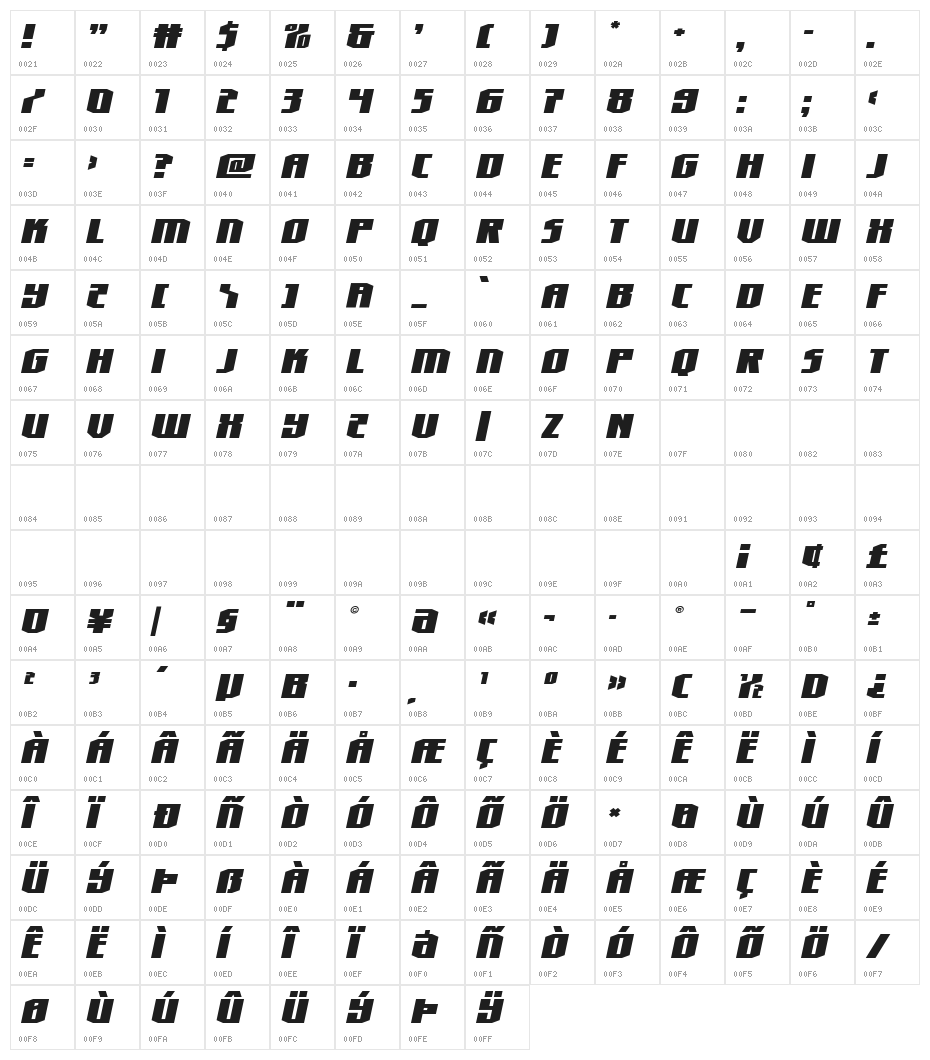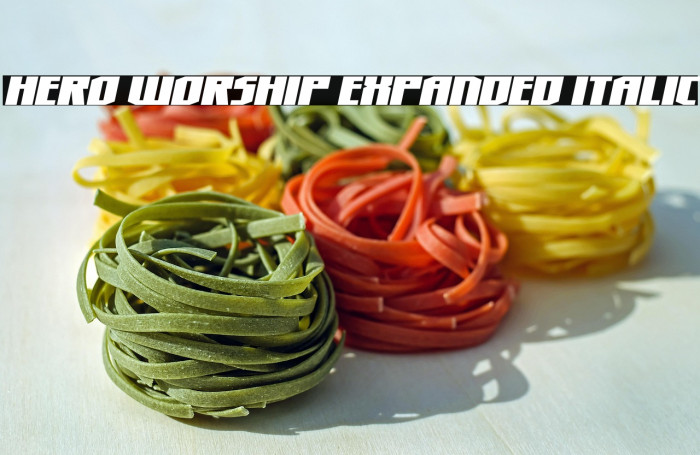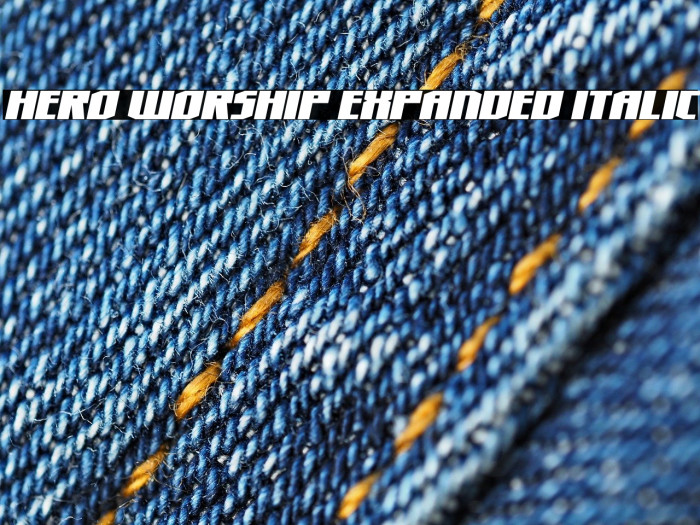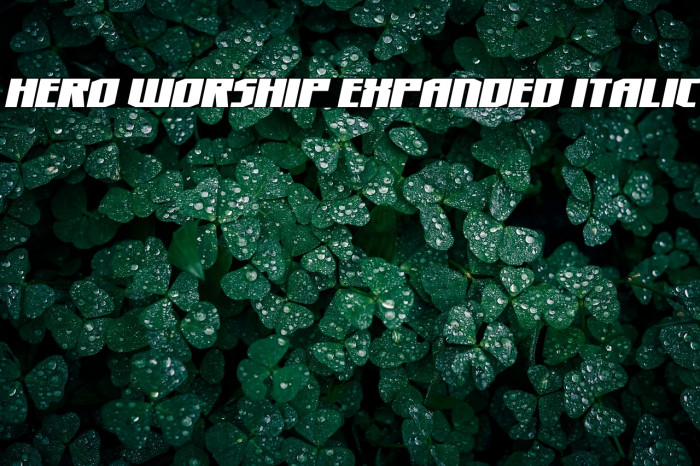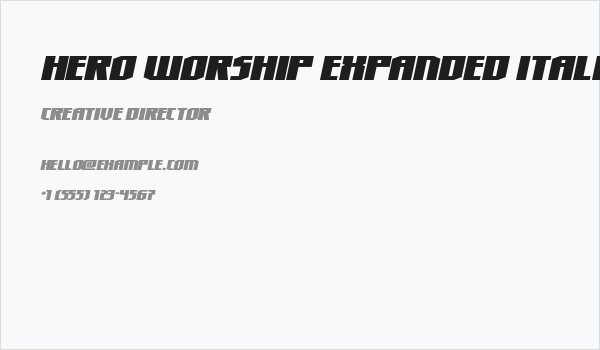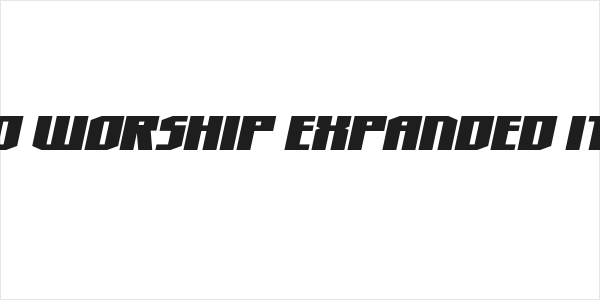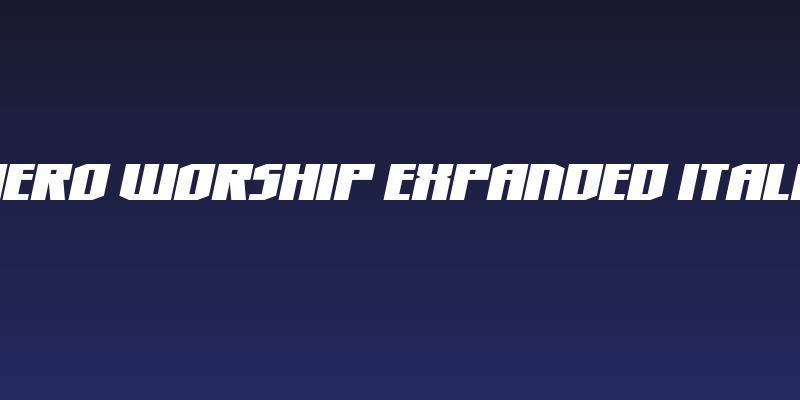
Hero Worship Expanded Italic Font
Hero Worship Expanded Italic Description
This font features a bold and dynamic style with an expanded and italicized form. The characters exhibit a strong geometric influence, with sharp angles and a futuristic aesthetic. The uppercase and lowercase letters maintain a consistent width, contributing to a cohesive and uniform appearance. The numbers and special characters follow the same stylistic cues, ensuring a harmonious look across all glyphs. The font's design is well-suited for attention-grabbing headlines and impactful logos, where a modern and assertive presence is desired. Its expanded width and italic slant add a sense of motion and energy, making it ideal for projects that require a bold statement.
| Proposed Projects | Ideal for headlines, logos, posters, and branding materials that require a modern and dynamic look. |